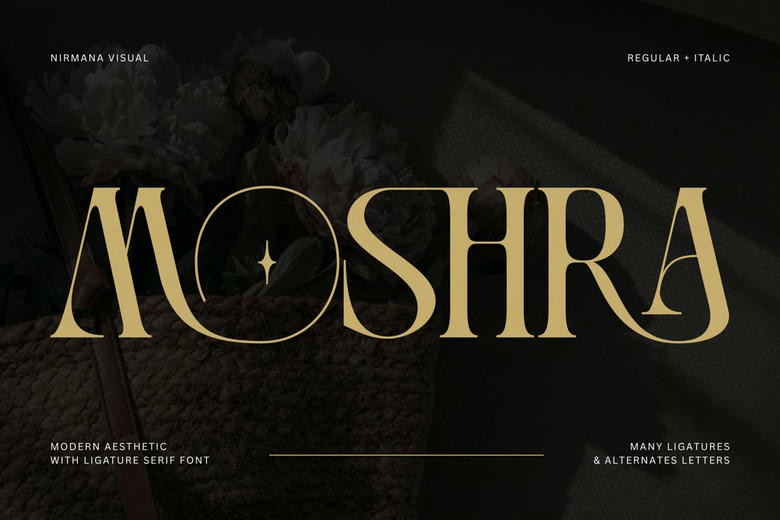
Moshra Aesthetic Font
Moshra Aesthetic – Modern Logo Font. Moshra Aesthetic offers beautiful typographic harmony for a diversity of design projects, including logos & branding, social media posts, advertisements & product designs.
Moshra Aesthetic Serif Font